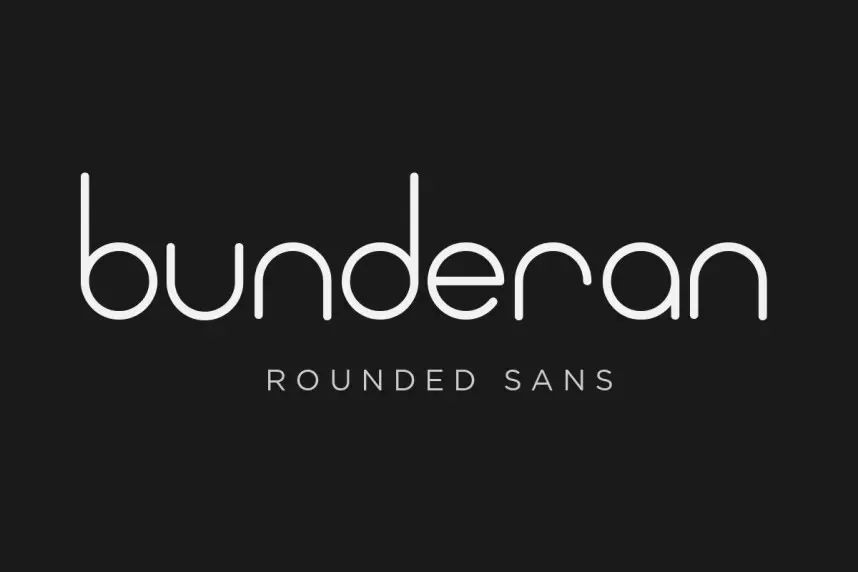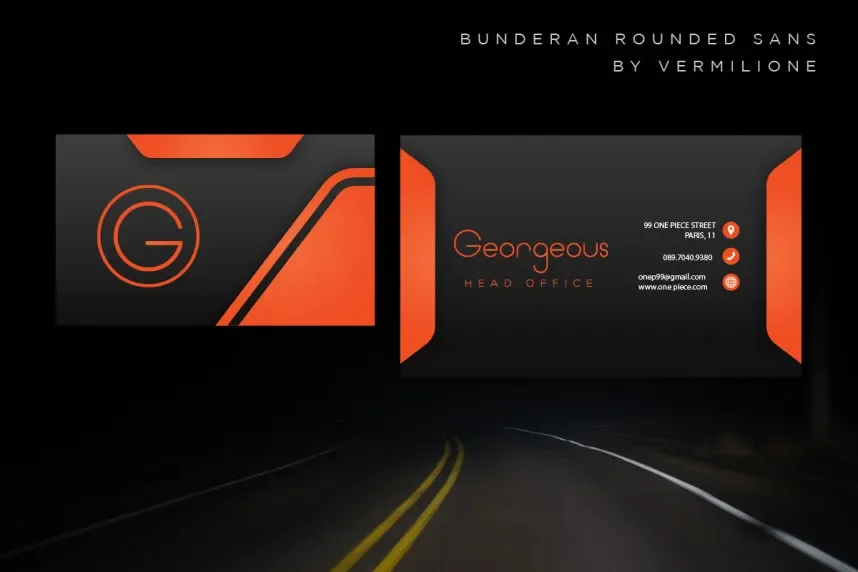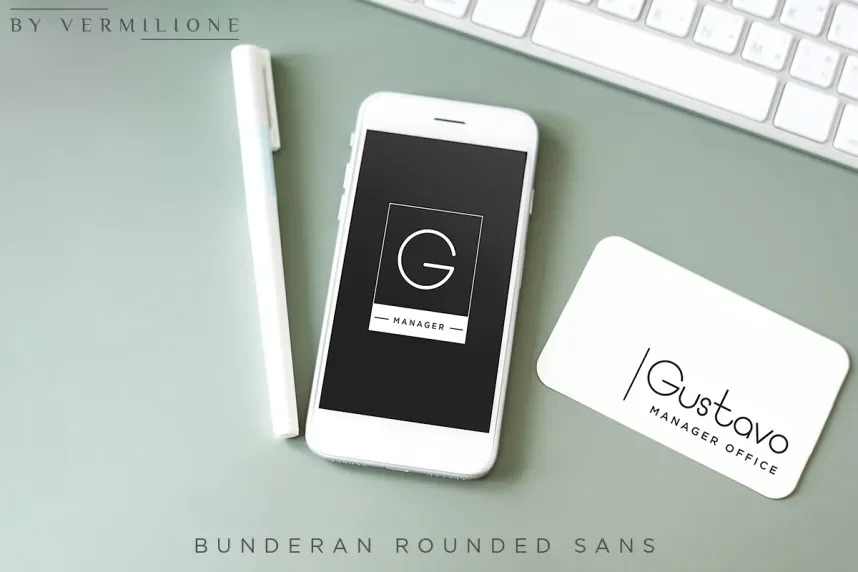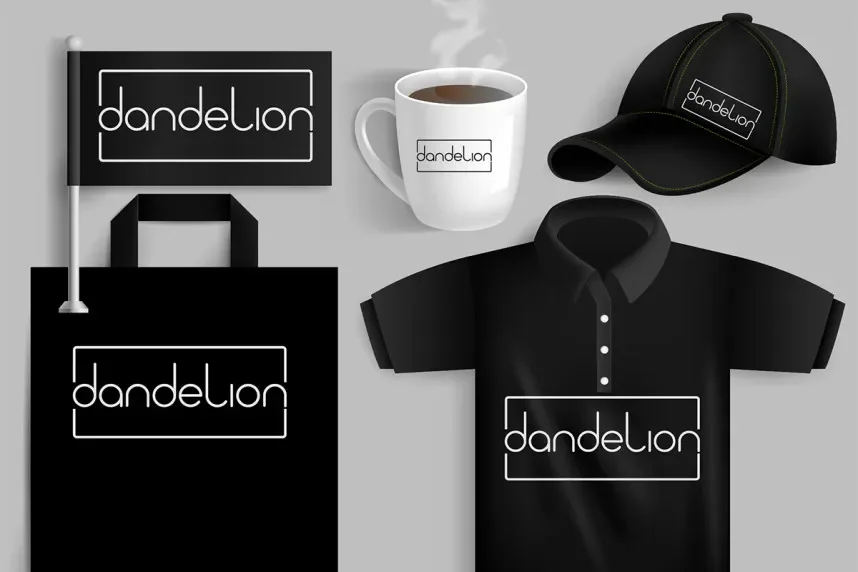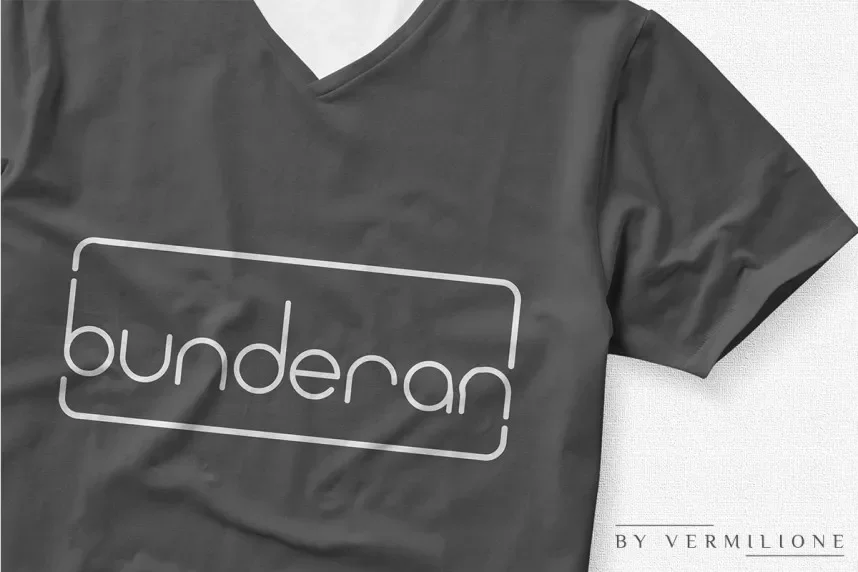
Bunderan Font tackles the need for approachable, readable display typography. Overly sharp or condensed display fonts can reduce legibility in logos or headlines.
Bunderan is a rounded display font with smooth curves, consistent stroke weight, and generous spacing. Its forms maintain clarity while giving a friendly visual impression.